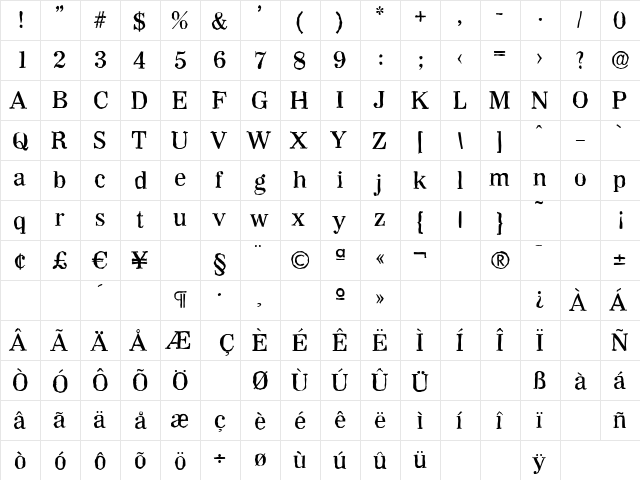
WichitaAntique-Medium Regular
Design Context for WichitaAntique-Medium Typeface
WichitaAntique-Medium has the warm character of retro typography — evoking diners, record sleeves, and the golden age of print advertising.
Font Pairing: Combine WichitaAntique-Medium with a simple slab or neutral sans — period-accurate companions reinforce the vintage feel without competing for attention.
Pro Tip: Use WichitaAntique-Medium for headlines and pull quotes rather than body copy — its personality is best appreciated in short, focused bursts.